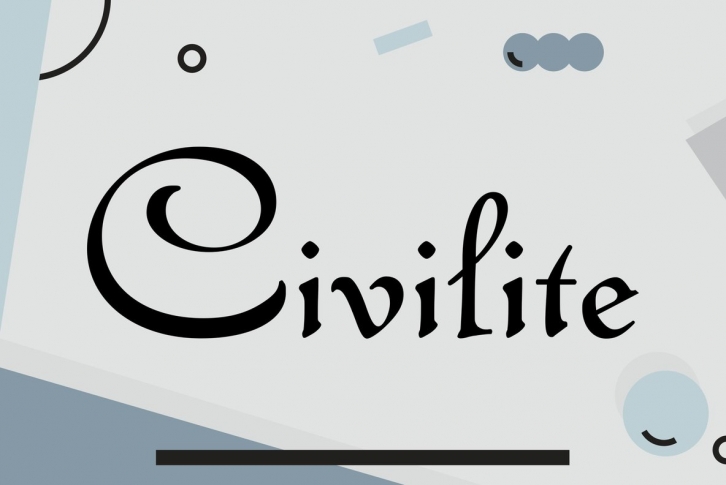
Civilite in its modern version was designed by Morris Fuller Benton for ATF in 1922. Civilite is said to be the first cursive typeface cut in type. The original was designed by Robert Granjon in 1557, and Granjon wanted to create a typeface imitating the semi formal, modern handwriting of its time. His design became popular for the printing of poetry and for school books, serving as perfect model of handwriting. The first of these books was titled La Civilite puerile, printed in Antwerp in 1559. These books became so popular that the typeface used became known as Civility type.